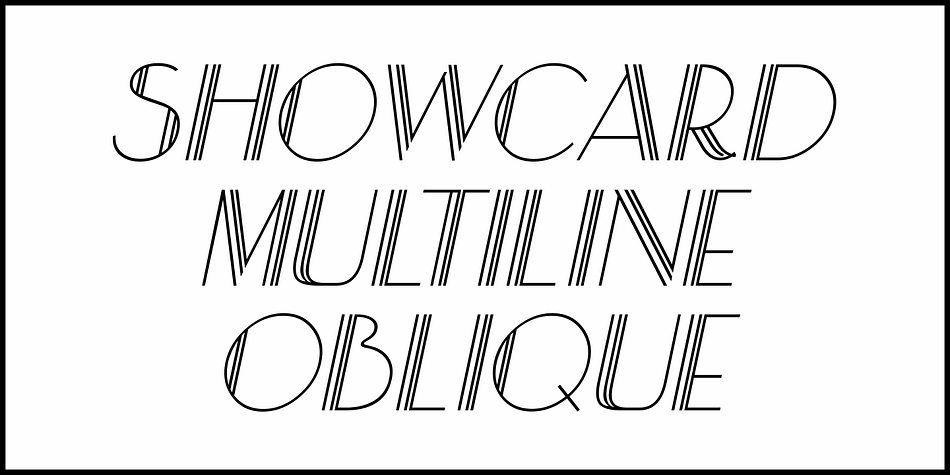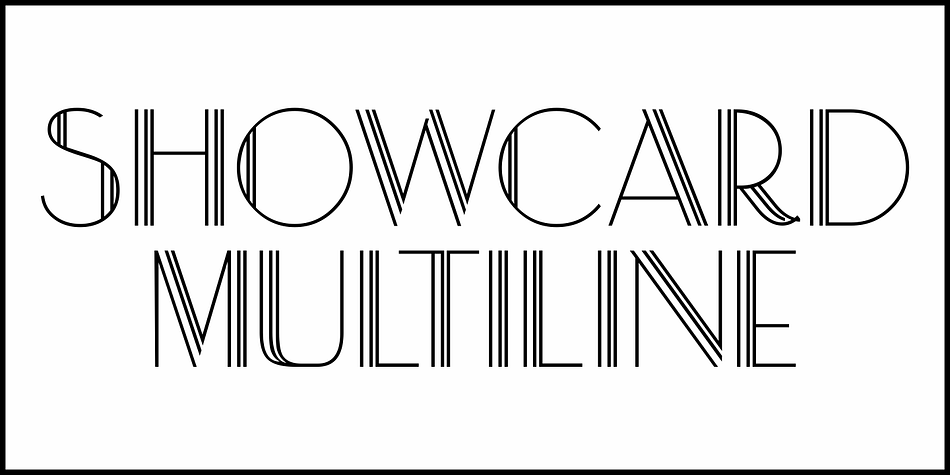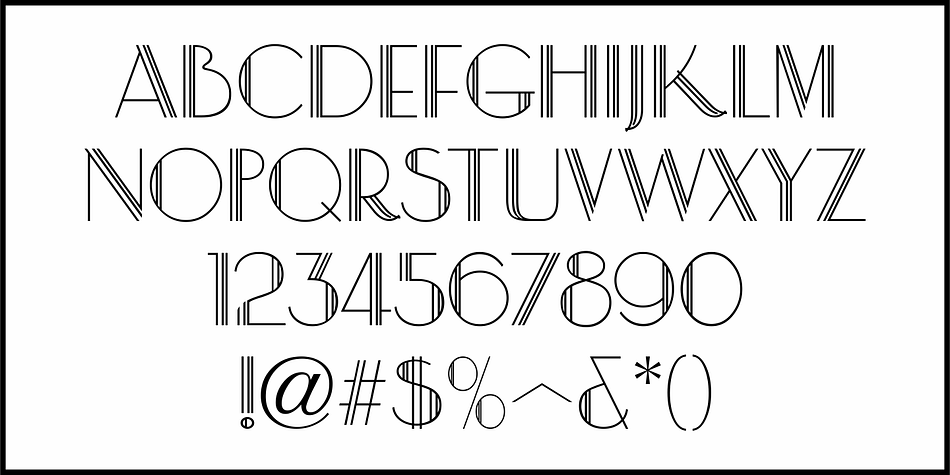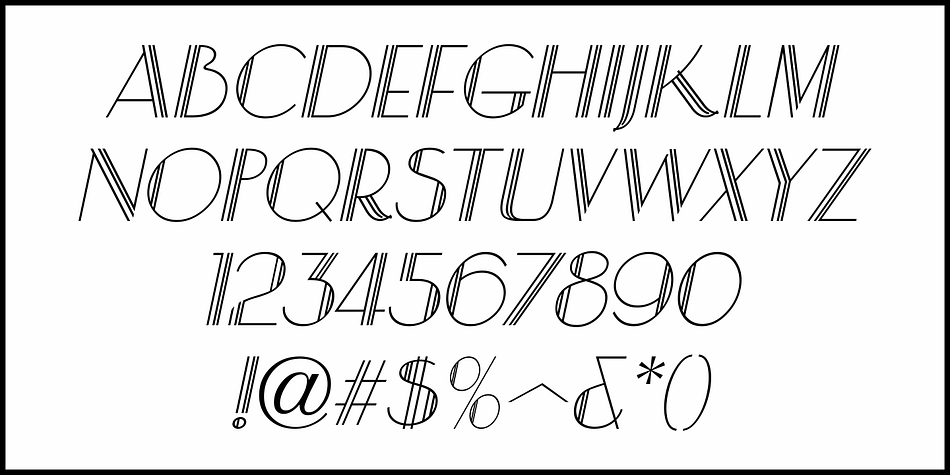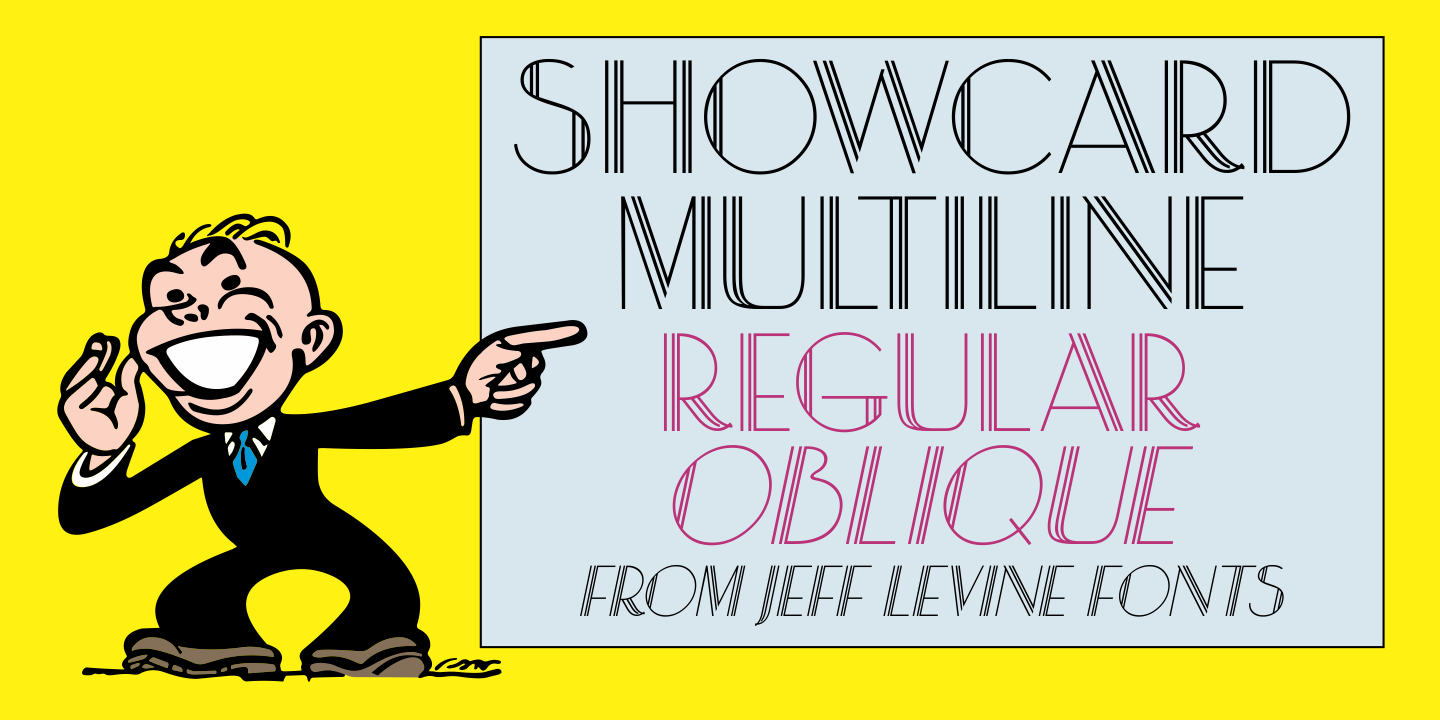
SHOWCARD MULTILINE JNL
Designed by Jeff Levine, Showcard Multiline JNL is an art deco and display sans font family. This typeface has two styles and was published by Jeff Levine Fonts.
On page 45 of Samuel Welo’s 1930 instructional book “Lettering Practical and Foreign” is a multi-line alphabet of Art Deco elegance that perfectly captures the spirit of the Streamline era.
The digital version is available as Showcard Multiline JNL in both regular and oblique versions.